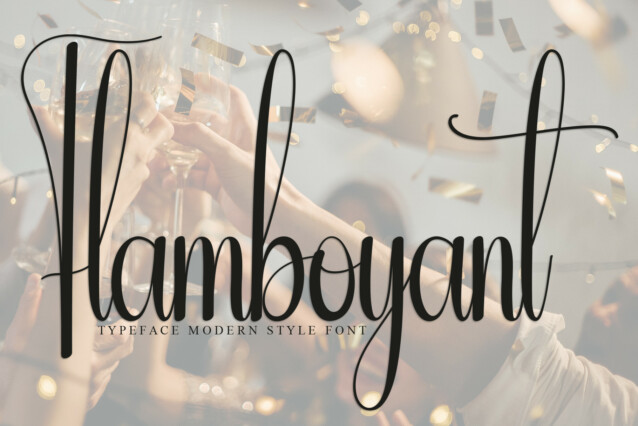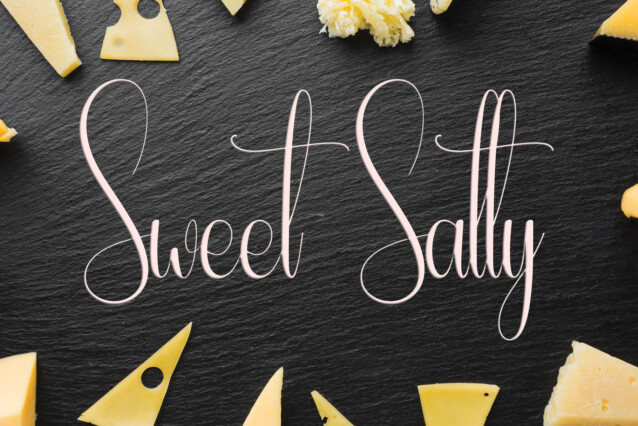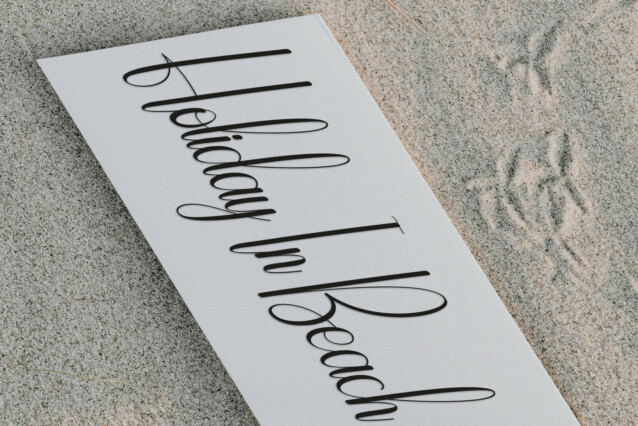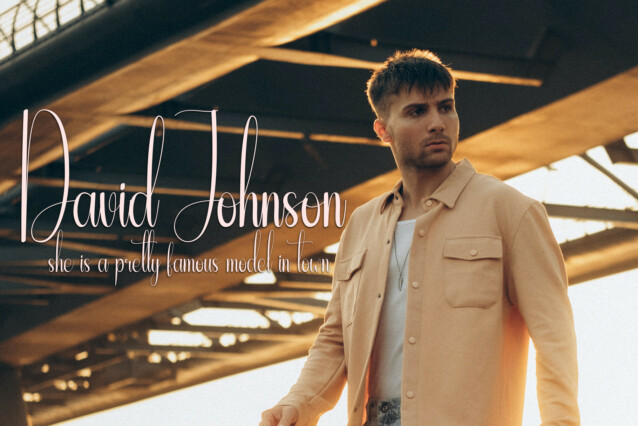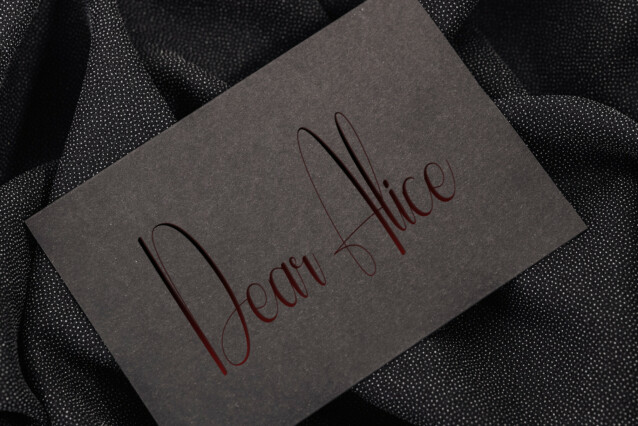
Flamboyant Script Font is a sweet and friendly handwritten display font. Cute and fun, this font is ideal for writing wedding invitations, cards, or any other design that might need a playful touch!